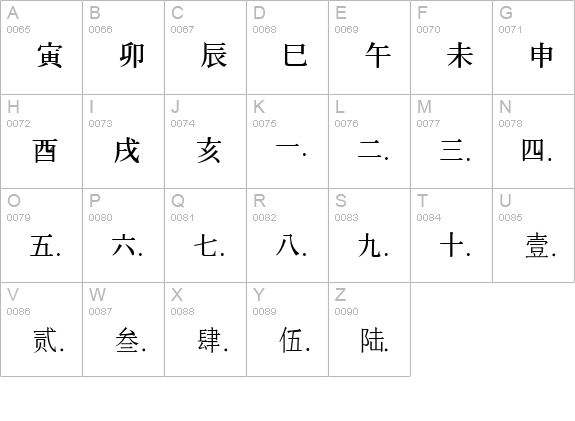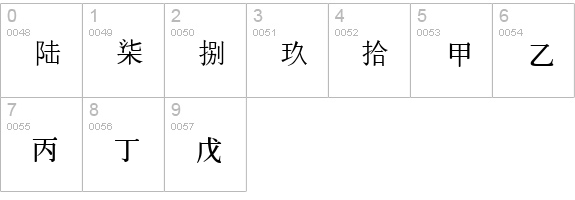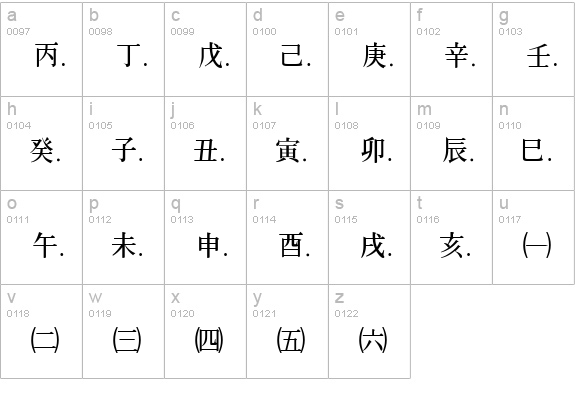
Chinese Generic1 Font Details
Chinese Generic1 font is a versatile and elegant typeface that beautifully captures the essence of traditional Chinese calligraphy. Its graceful strokes and intricate details make it perfect for a wide range of design projects, from branding to editorial design. The font exudes a sense of sophistication and cultural richness, making it a great choice for anyone looking to add a touch of authenticity to their work. One of the best things about Chinese Generic1 font is that it is completely free to download at FontsMarket.com. This means that you can easily access this stunning font and incorporate it into your designs without any cost. Whether you are working on a personal project or a professional assignment, Chinese Generic1 font is sure to elevate your work with its timeless beauty and classic charm. Download it today and experience the magic of this exquisite typeface for yourself!